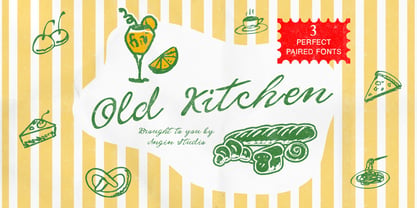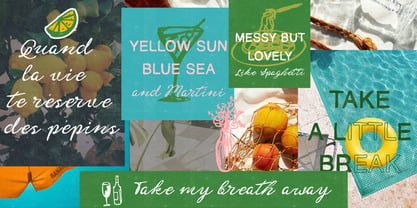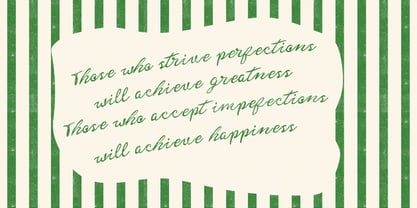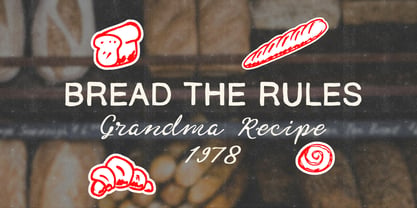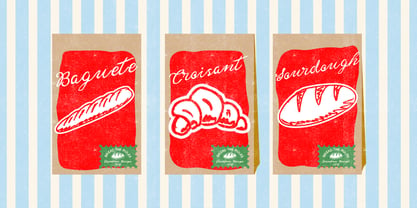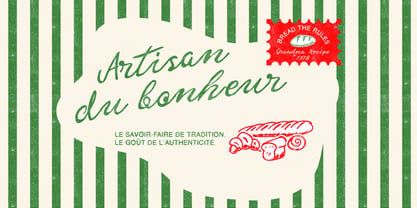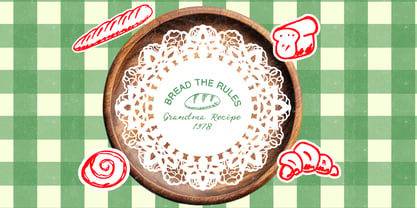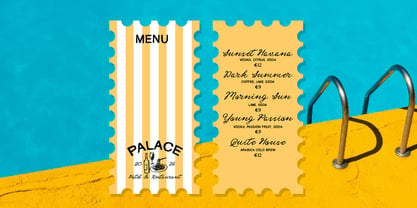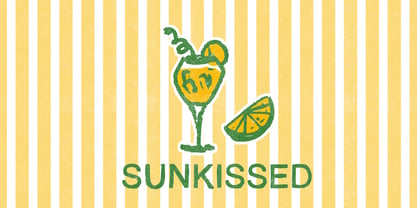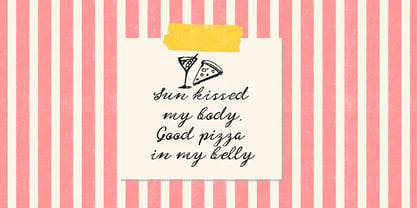
Old Kitchen
by Angin Studio
The Old Kitchen Font Family was designed by Ahmad Aswin, David Novrian and published by Angin Studio. Old Kitchen contains 3 styles and family package options. More about this family
Meet Old Kitchen, a font collection that strips away rigid digital geometry in favour of tactile, organic warmth. Old Kitchen is a thoughtfully crafted fonts that celebrates the beautiful flaws, natural textures, and human touch of hand drawn lettering.
This collection pairs an expressive, organic script with rustic sans-serif. Together, they create an effortless balance, bringing a raw, authentic energy to your designs.
Perfect for Packaging, branding, editorial layouts, social media graphics, merchandise, and any project that needs to feel human, approachable, and deeply authentic. Embrace the rough edges of imperfections.